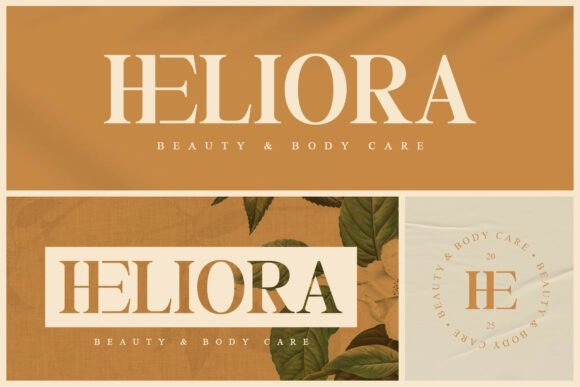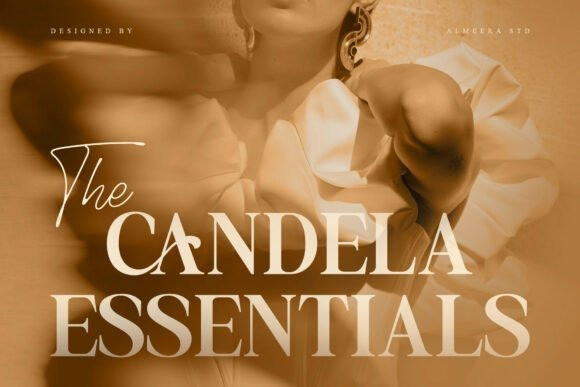
Prestyne Font
Prestyne Font is a stylish serif font featuring unique alternates and artistic ligatures. Its flowing shapes bring personality and refinement to every project, from editorial layouts and invitations to fashion identities, packaging, and logos. Prestyne combines modern style with timeless character, offering a typeface that is both versatile and expressive.